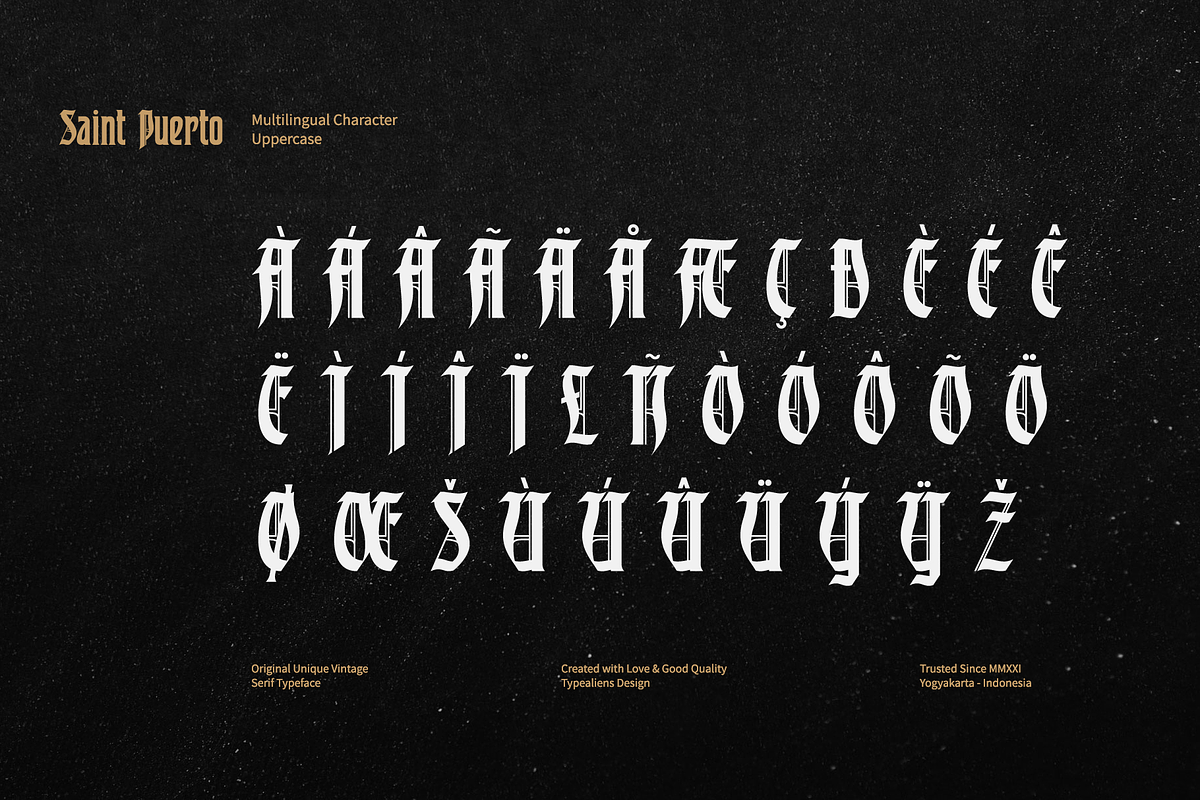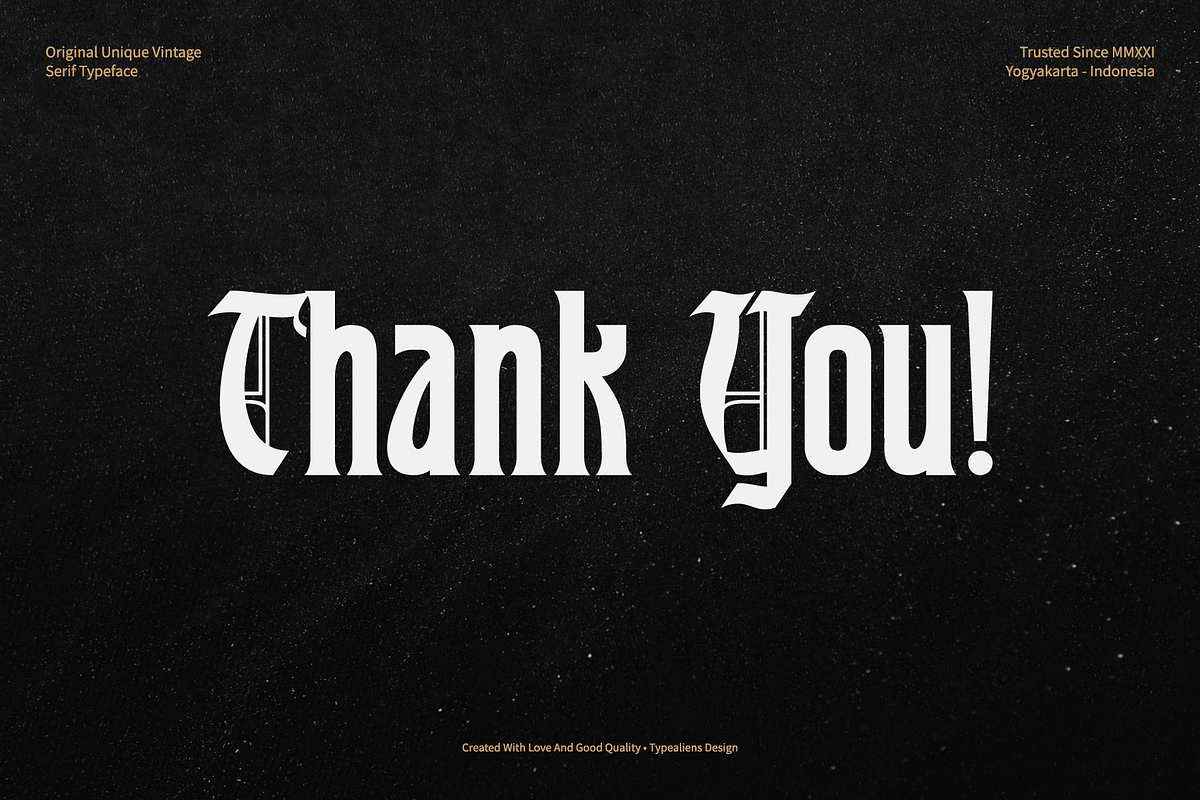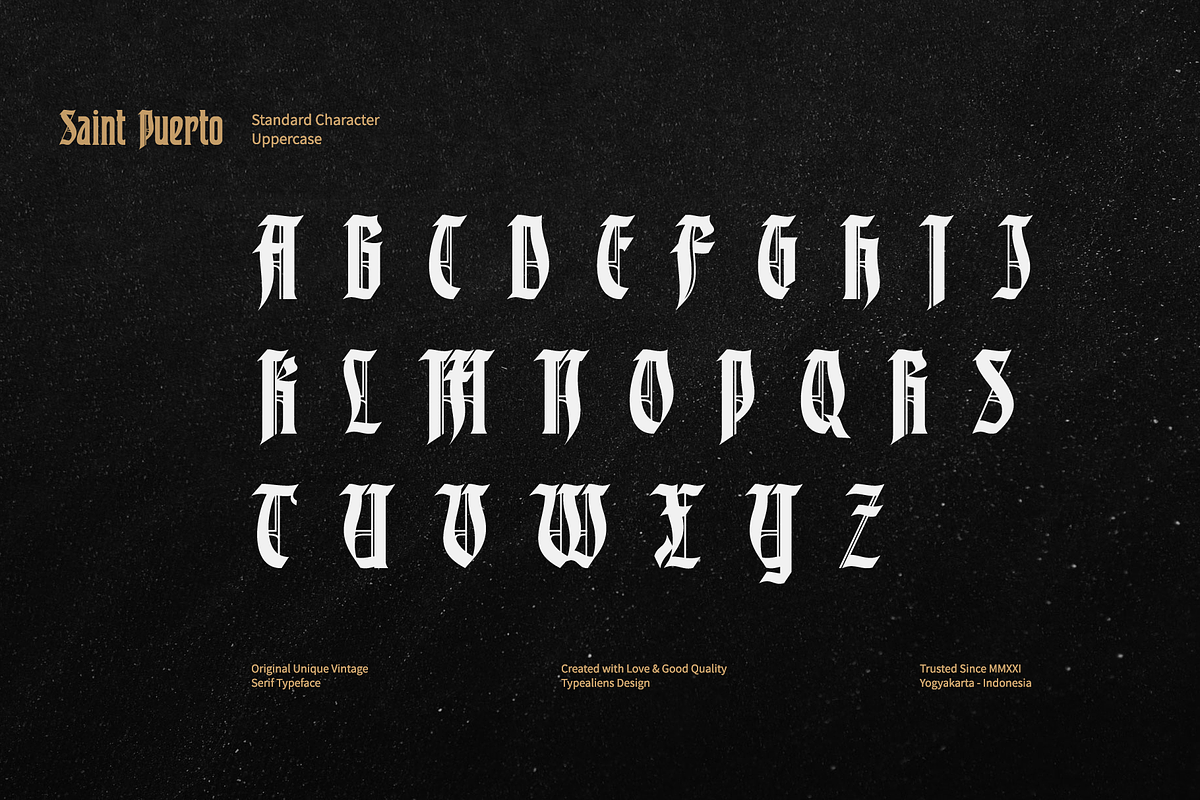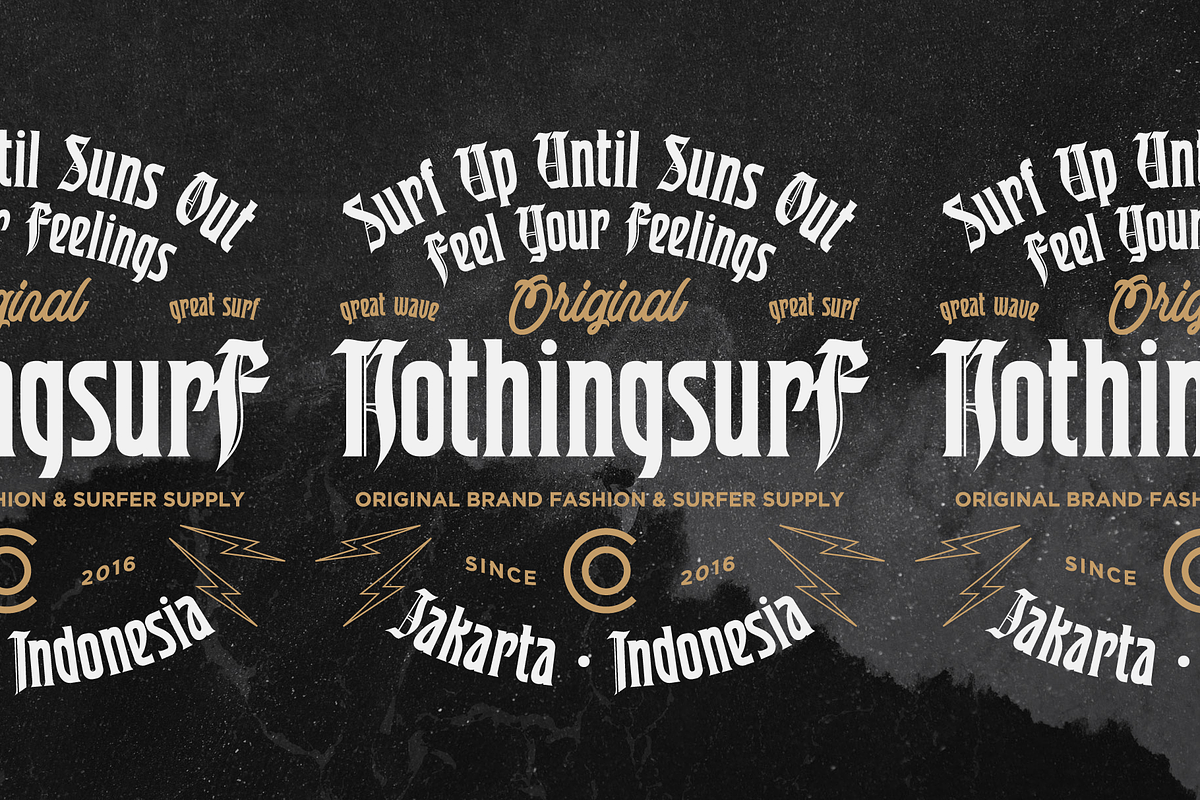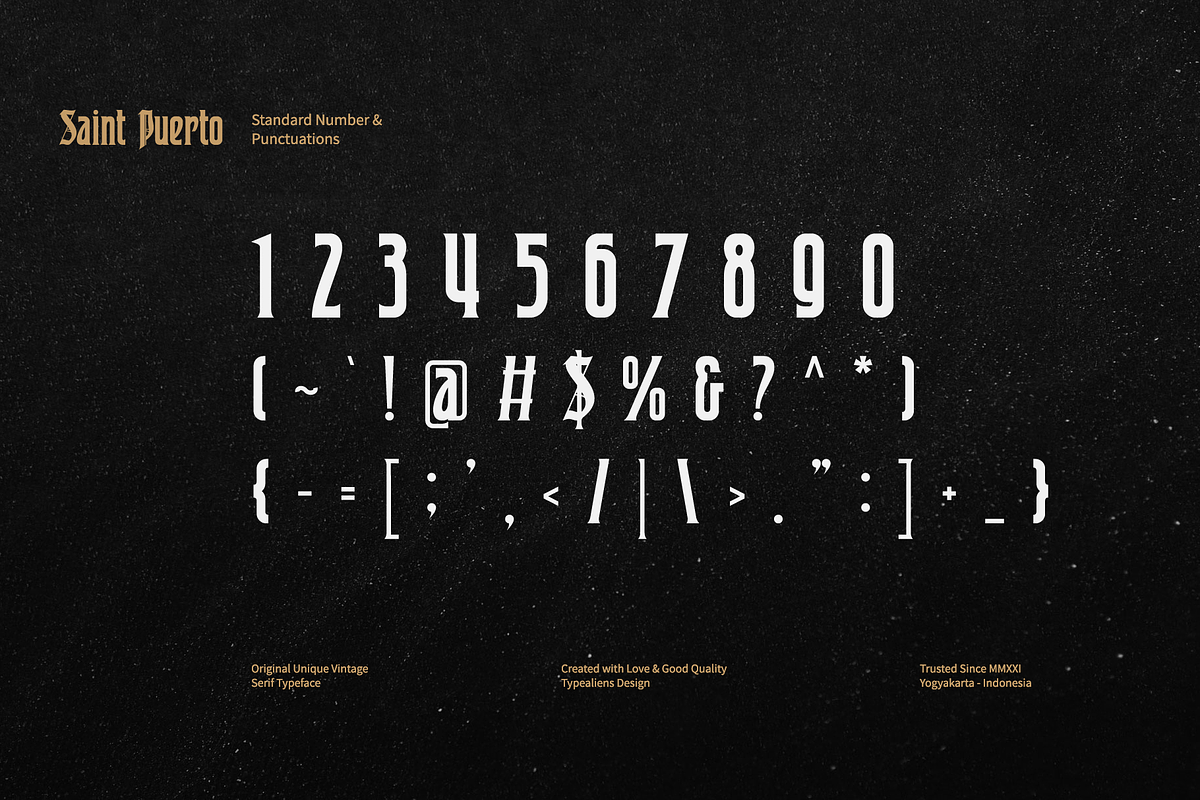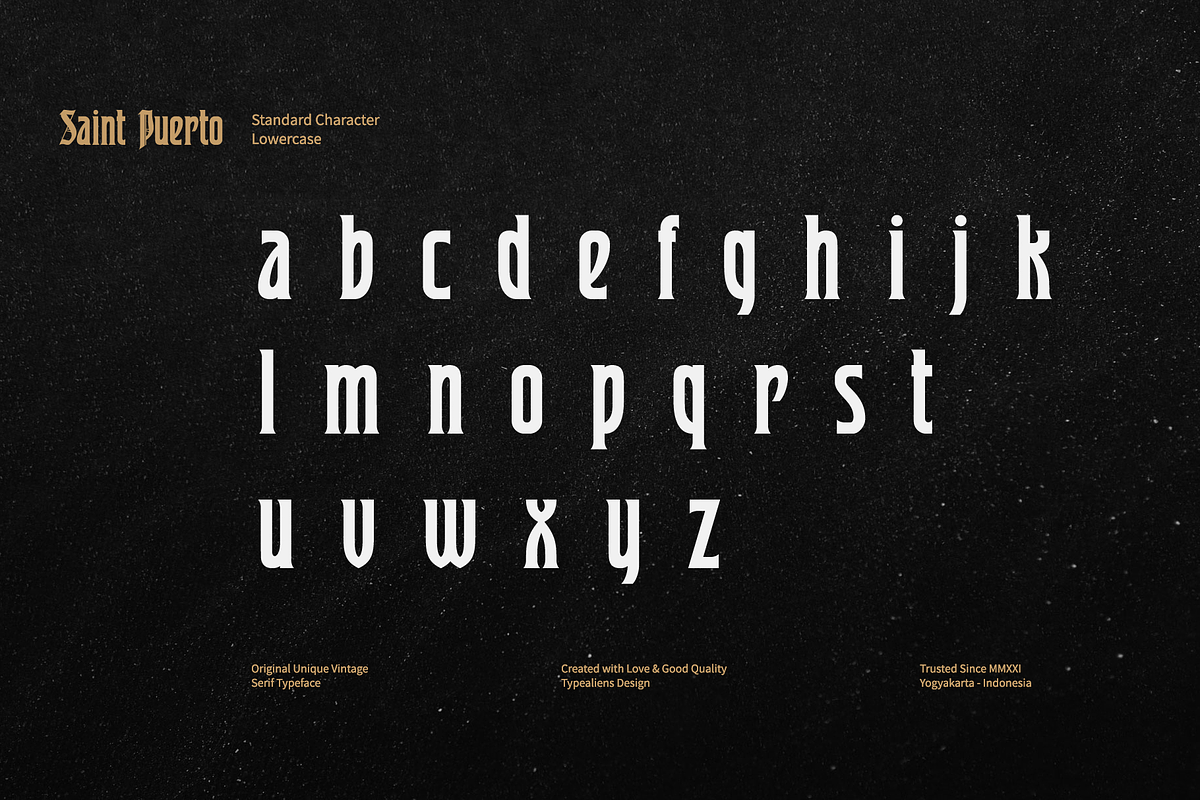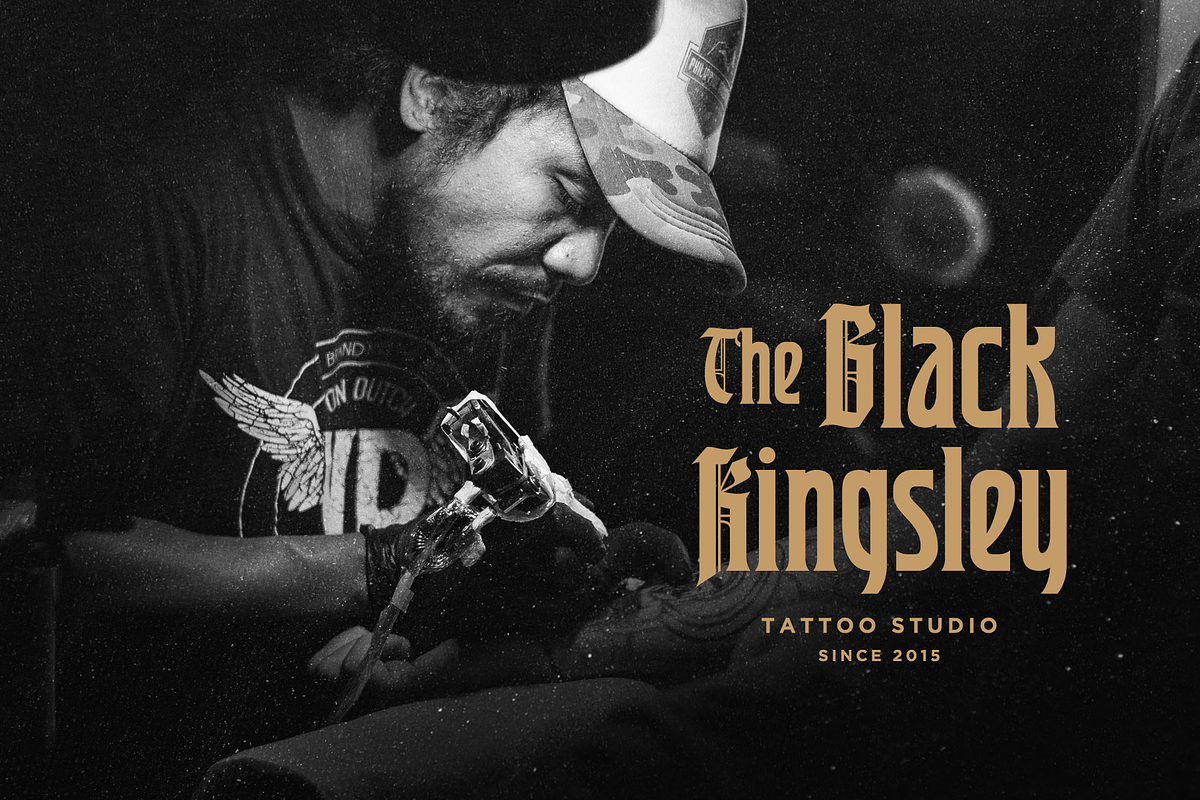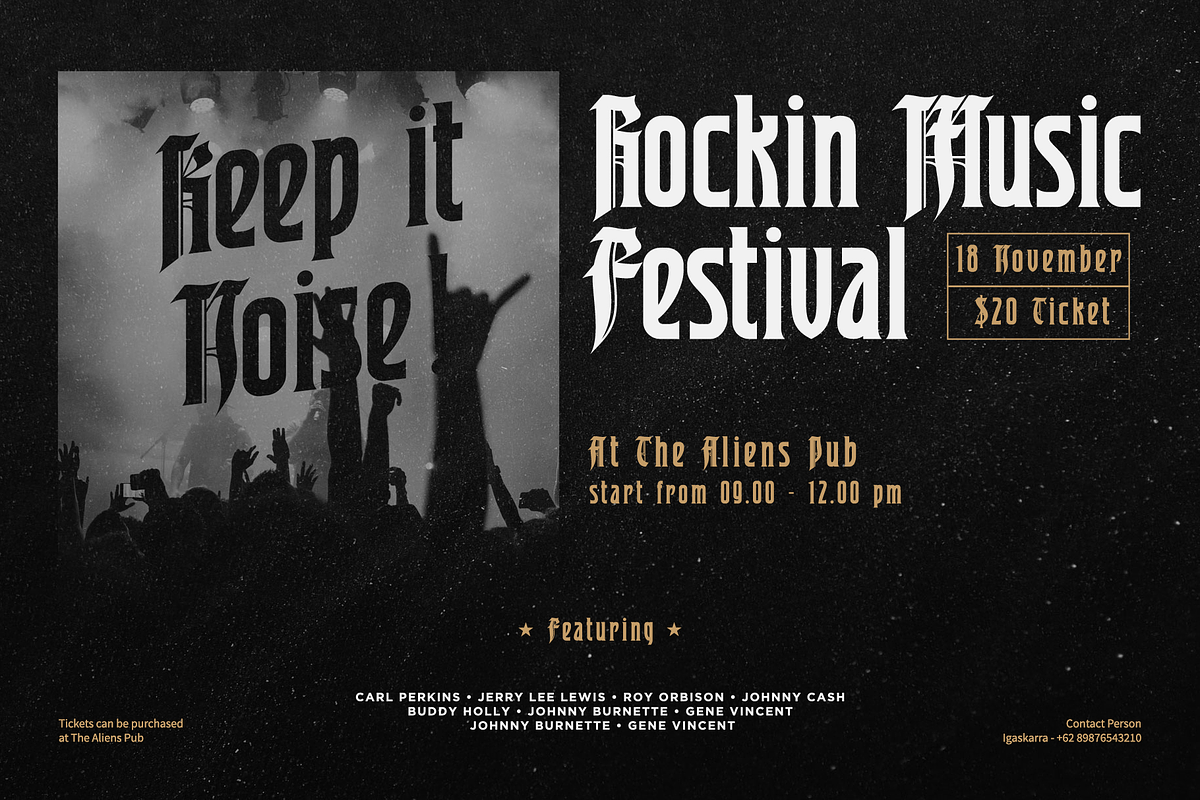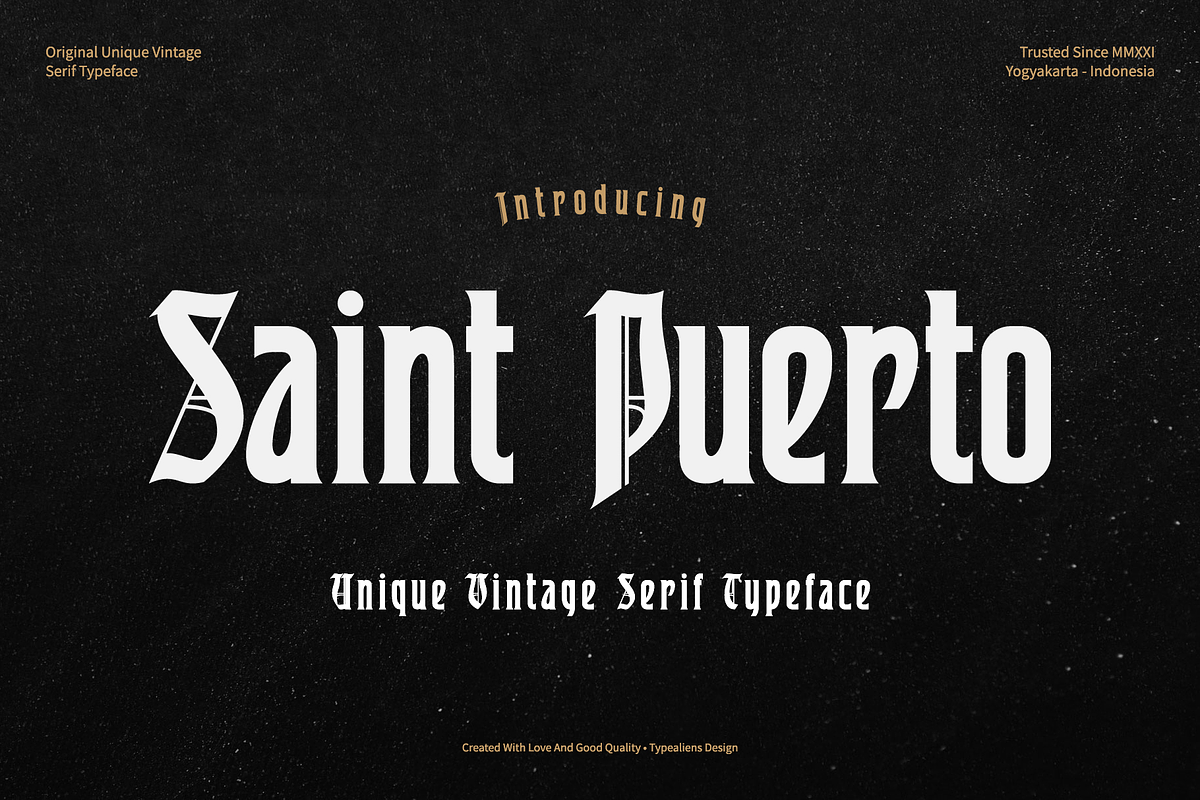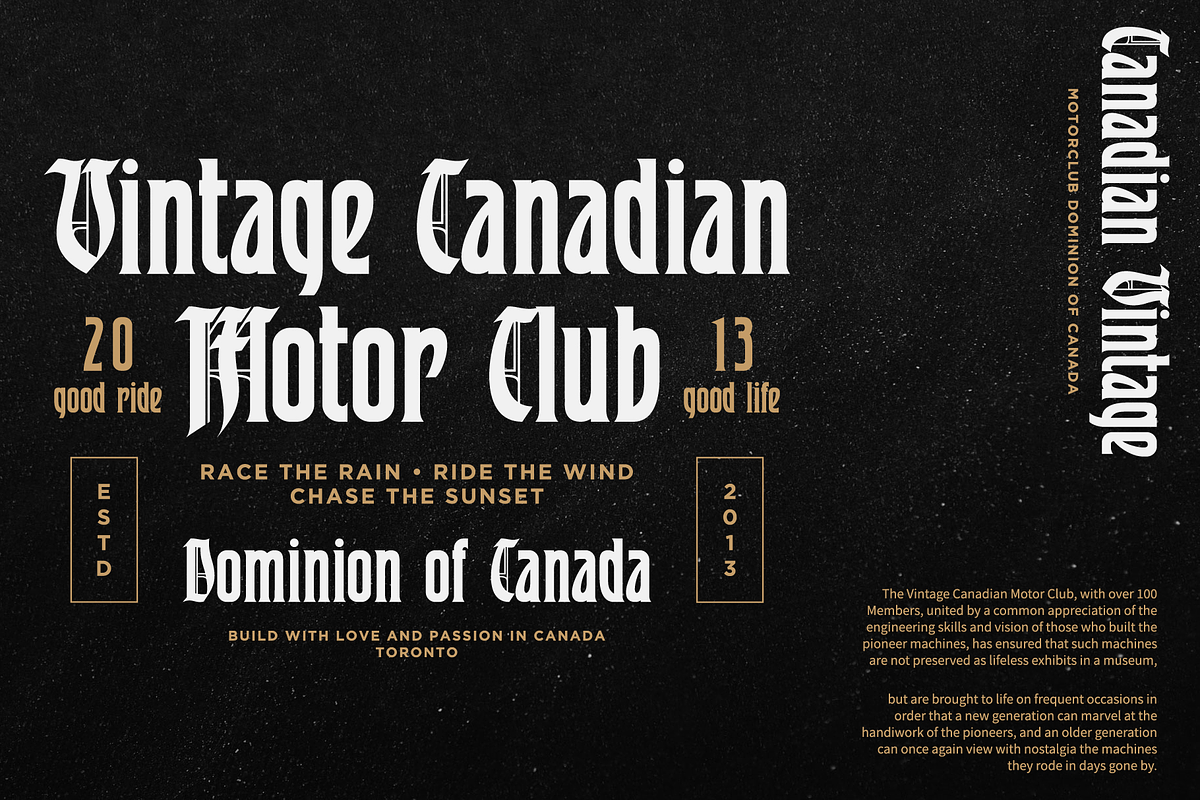
Saint Puerto
SAINT PUERTO
Saint Puerto is a display font based on serif letters combined with Uppercase which slightly resembles a blackletter font, resulting in a pretty cool, vintage, simple mix but with a bit of goth.